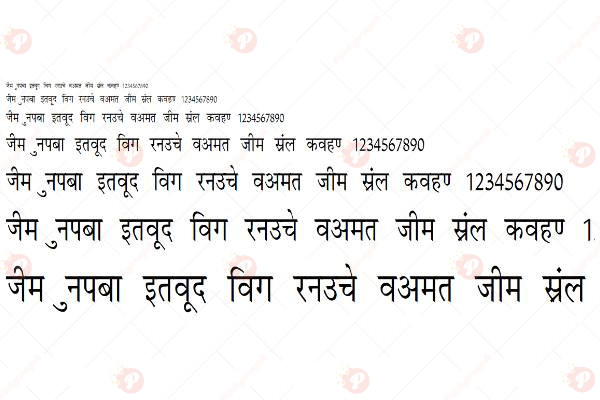
The Krishna Condensed Font is a devotional and traditional typeface with narrow letterforms that save space while keeping elegance and readability intact. Perfect for festival posters, temple banners, invitations, devotional books, cultural branding, packaging, and social media design, this condensed version makes text look stylish, spiritual, and professional.
By combining heritage-inspired strokes with a space-efficient design, the Krishna Condensed Font is ideal for projects that need a devotional feel without compromising readability in tight layouts.
Style: Condensed / Devotional / Traditional Typeface
Experience the divine blend of tradition and space-saving elegance with the Krishna Condensed Font.